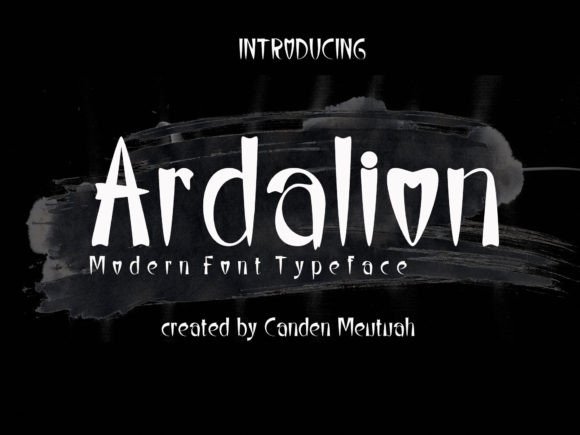
Introducing Ardalion Font: The Ultimate Modern Typeface for Stunning Designs
In the world of typography, fonts play a crucial role in conveying messages, expressing emotions, and creating visual identities. For designers, finding the perfect font that combines style, boldness, and beauty can be a daunting task. However, with the introduction of Ardalion Font, those days are behind us. This modern font is specifically designed to provide beautiful typographic harmony for a wide range of design projects, making it an ideal choice for designers and businesses alike.
What is Ardalion Font?
Ardalion Font is a stylish, bold, and beautiful modern typeface that has been carefully crafted to meet the demands of contemporary design. Its unique and elegant features make it perfect for a variety of applications, from logos and branding to social media posts, advertisements, and more. Whether you’re looking to create a stunning visual identity for your business or simply want to add some flair to your designs, Ardalion Font is the perfect choice.
Key Features of Ardalion Font
So, what sets Ardalion Font apart from other typefaces? Here are some of its key features:
- Stylish and Modern Design: Ardalion Font boasts a sleek and contemporary design that is sure to grab attention.
- Bold and Beautiful: With its bold and beautiful appearance, Ardalion Font is perfect for creating stunning visual identities.
- Typographic Harmony: The font has been carefully crafted to provide beautiful typographic harmony, making it ideal for a wide range of design projects.
- Versatile: Ardalion Font can be used for a variety of applications, including logos, branding, social media posts, advertisements, and more.
Use Cases for Ardalion Font
Ardalion Font is an incredibly versatile typeface that can be used for a wide range of design projects. Here are some examples of how you can use Ardalion Font:
- Logos and Branding: Create a stunning visual identity for your business with Ardalion Font.
- Social Media Posts: Add some flair to your social media posts with Ardalion Font.
- Advertisements: Use Ardalion Font to create eye-catching advertisements that grab attention.
- Greeting Cards: Add a touch of elegance to your greeting cards with Ardalion Font.
- Stationery Designs: Create beautiful stationery designs with Ardalion Font.
- Invitations: Use Ardalion Font to create stunning invitations for special occasions.
- T-Shirts and Clothing: Add some style to your t-shirts and clothing with Ardalion Font.
- Packaging: Use Ardalion Font to create eye-catching packaging designs.
- Posters: Create stunning posters with Ardalion Font.
Benefits of Using Ardalion Font
So, why should you choose Ardalion Font for your design projects? Here are some benefits of using Ardalion Font:
- Unique and Elegant: Ardalion Font offers a unique and elegant design that sets it apart from other typefaces.
- Versatile: Ardalion Font can be used for a wide range of design projects, making it a great addition to your font library.
- Easy to Read: Despite its bold and stylish appearance, Ardalion Font is easy to read, making it perfect for body text and headlines.
- Scalable: Ardalion Font is highly scalable, making it perfect for use in a variety of applications, from small icons to large billboards.
Tips and Tricks for Using Ardalion Font
Here are some tips and tricks for getting the most out of Ardalion Font:
- Experiment with Different Sizes: Experiment with different font sizes to find the perfect balance for your design project.
- Pair with Other Fonts: Pair Ardalion Font with other fonts to create a unique and interesting typographic combination.
- Use in Combination with Images: Use Ardalion Font in combination with images to create stunning visual identities.
In conclusion, Ardalion Font is a stylish, bold, and beautiful modern typeface that is perfect for a wide range of design projects. Its unique and elegant features make it a great addition to any font library, and its versatility makes it easy to use in a variety of applications. Whether you’re a designer or a business owner, Ardalion Font is a great choice for creating stunning visual identities.
- What is Ardalion Font?: Ardalion Font is a stylish, bold, and beautiful modern typeface.
- What can I use Ardalion Font for?: Ardalion Font can be used for a wide range of design projects, including logos, branding, social media posts, advertisements, and more.
- Is Ardalion Font easy to read?: Yes, despite its bold and stylish appearance, Ardalion Font is easy to read.